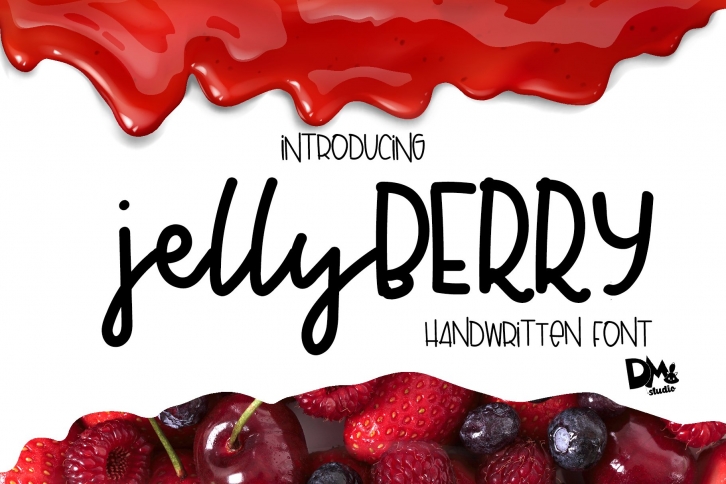
Jelly Berry - Handwritten Font Download
Jelly Berry is a gorgeous font that was realeased on December 5, 2020. The font can be used in many style contexts and design environments. Perfect for invitations, magazines, websites, logos, and more! It was designed by DMletterstudio and the file size is 14.81 MB. Thanks for checking out this font!